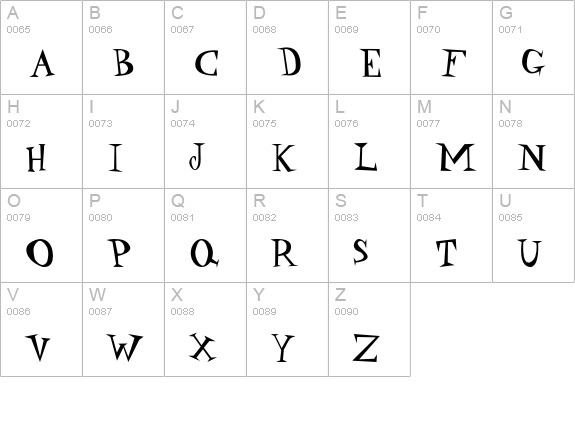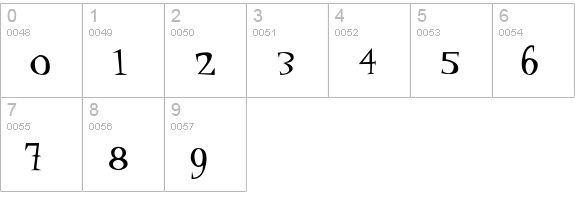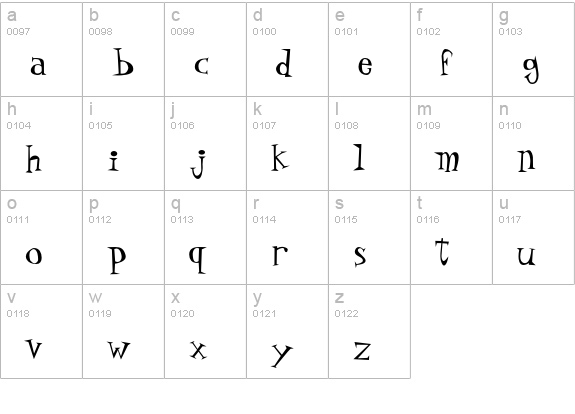
P22DaddyOHip Font Details
P22DaddyOHip font is a captivating and expressive typeface that effortlessly exudes a cool and urban vibe. Its distinctive style draws inspiration from graffiti art and hip-hop culture, making it the perfect choice for projects that aim to make a bold statement. The font features bold and dynamic letterforms, with a unique blend of sharp edges and fluid curves. This combination creates a visually striking and energetic look that commands attention. P22DaddyOHip font is designed to convey a sense of attitude and individuality, making it an excellent choice for logo designs, headlines, posters, and other creative projects. What makes P22DaddyOHip font even more remarkable is that it is available for free download at FontsMarket.com. This means that you can easily access and enjoy the font without any cost. Whether you are a professional designer or simply someone who appreciates good typography, this free font offers a fantastic opportunity to enhance your creative work. With its versatility and edgy appeal, P22DaddyOHip font allows you to add a touch of urban coolness to your designs. Whether you are aiming for a contemporary and trendy look or want to infuse your project with a rebellious spirit, this font is sure to deliver. Embrace the freedom to express yourself creatively with P22DaddyOHip font, freely available for download at FontsMarket.com.